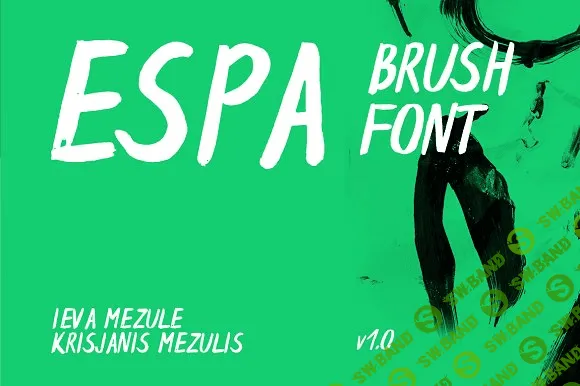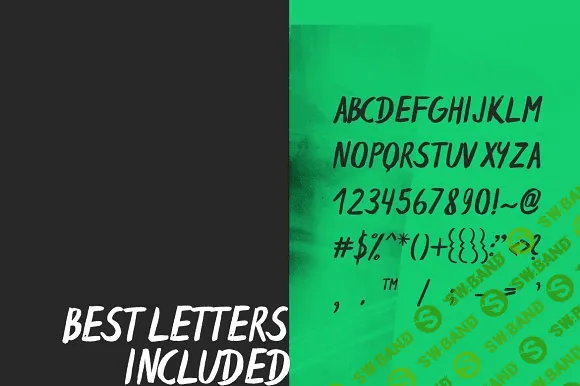
Название: Espa Font
Espa is a free brush font made by Ieva and Krisjanis Mezulis. It features a brush made feel and look. The font suits best big headlines and gives them a personal touch.